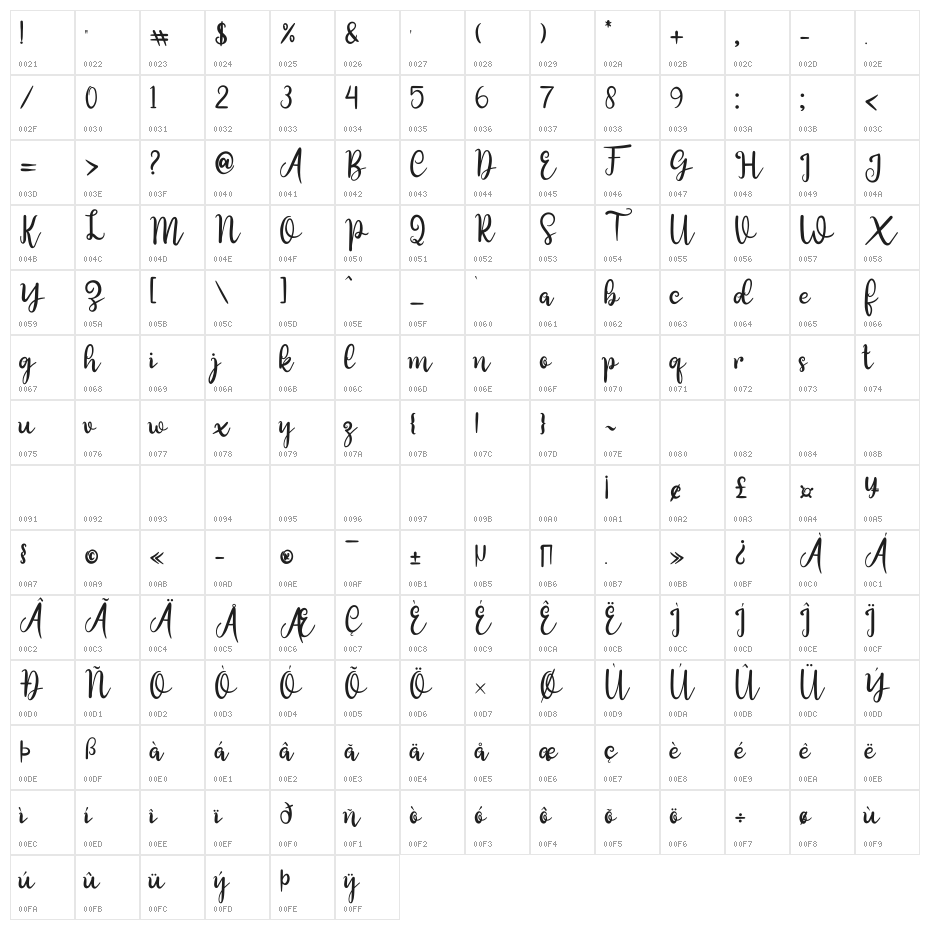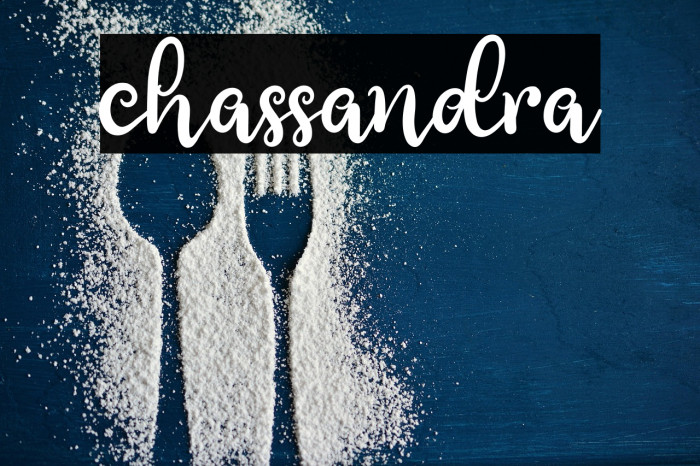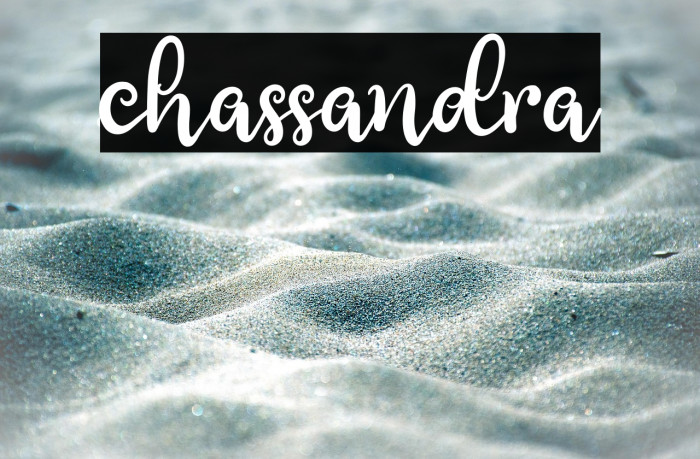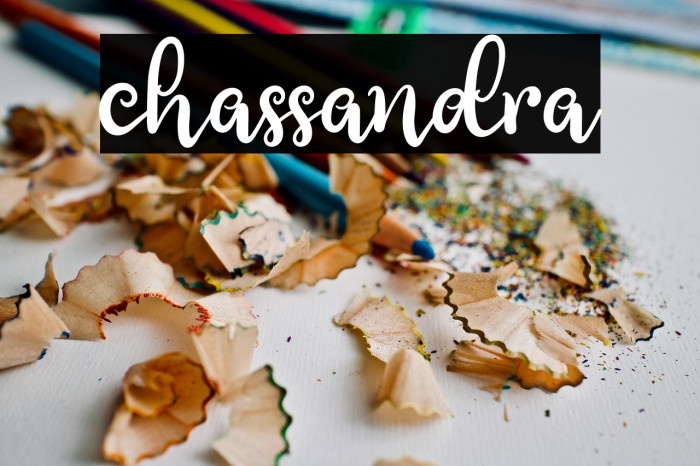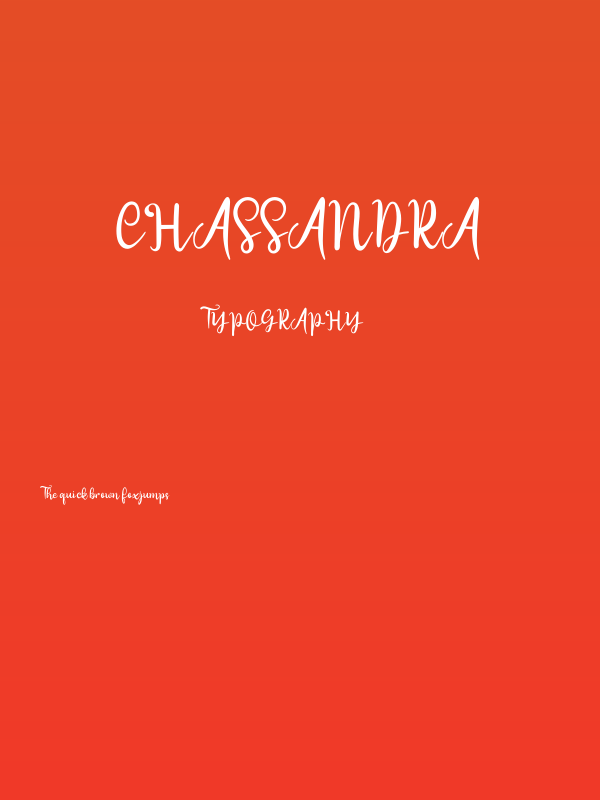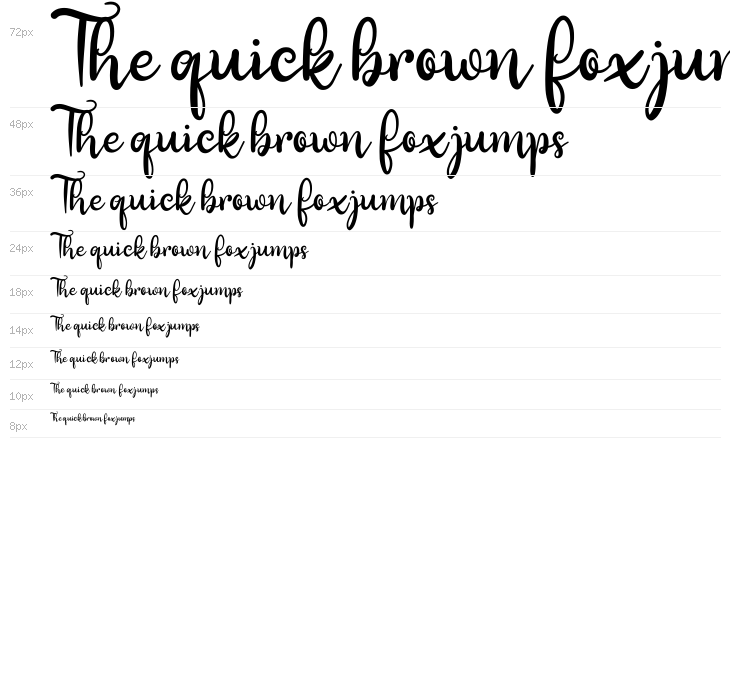
chassandra Font
chassandra Description
This font features a playful and elegant script style, characterized by its flowing, cursive letterforms. The uppercase letters are bold and expressive, with unique flourishes that add a touch of whimsy. The lowercase letters maintain a consistent style, with smooth curves and a slight slant, enhancing the handwritten feel. Numbers and special characters are designed to match the overall aesthetic, providing a cohesive look. The font's strokes vary in thickness, creating a dynamic contrast that adds visual interest. This font is well-suited for projects that require a personal, creative touch.
| Use Case | Logos, Headlines, Invitations |
| Proposed Projects | Ideal for wedding invitations, greeting cards, branding, and social media graphics. |